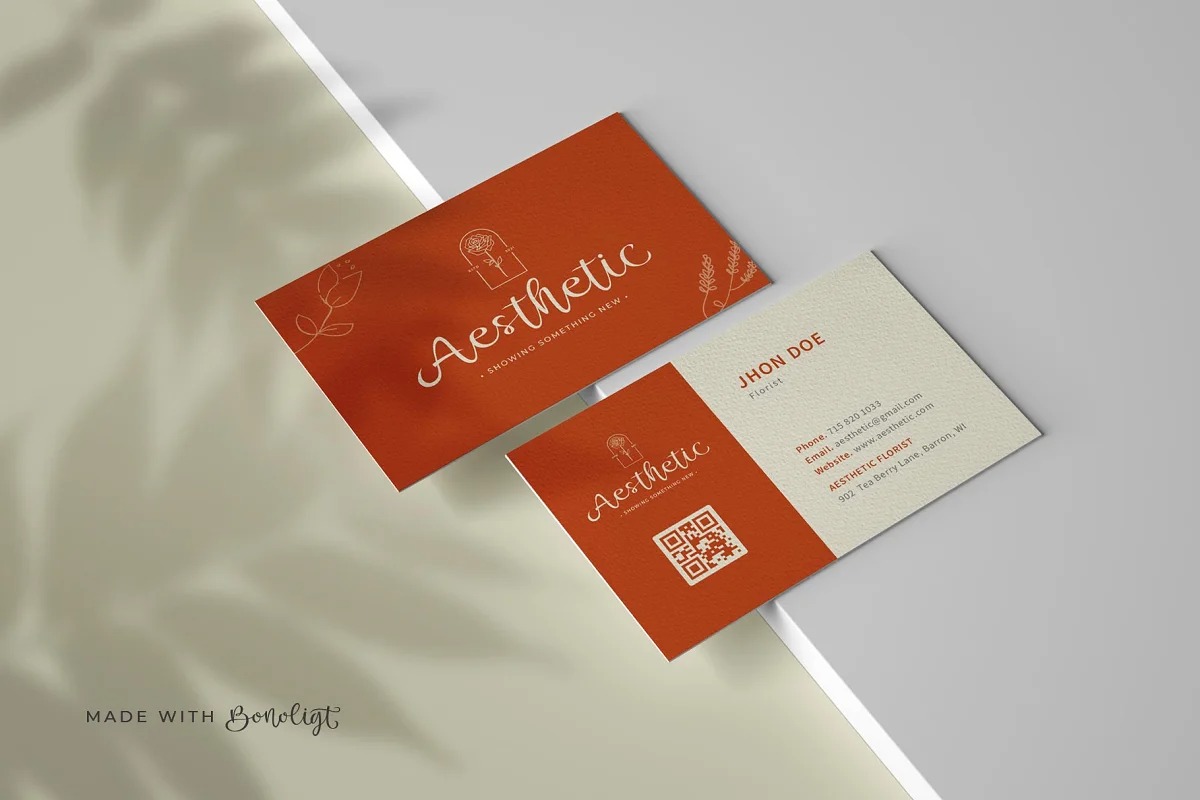
Bonoligt Script Font
This is a beautiful and light handwritten font created by alit design with a unique feel and a stunning impact. It will add a luxury spark to any design project that you wish to create! This font is perfect for svg designs, shirts, crafts, websites, farmhouse decor, christmas designs, branding, blogs, logos, invitations and more!